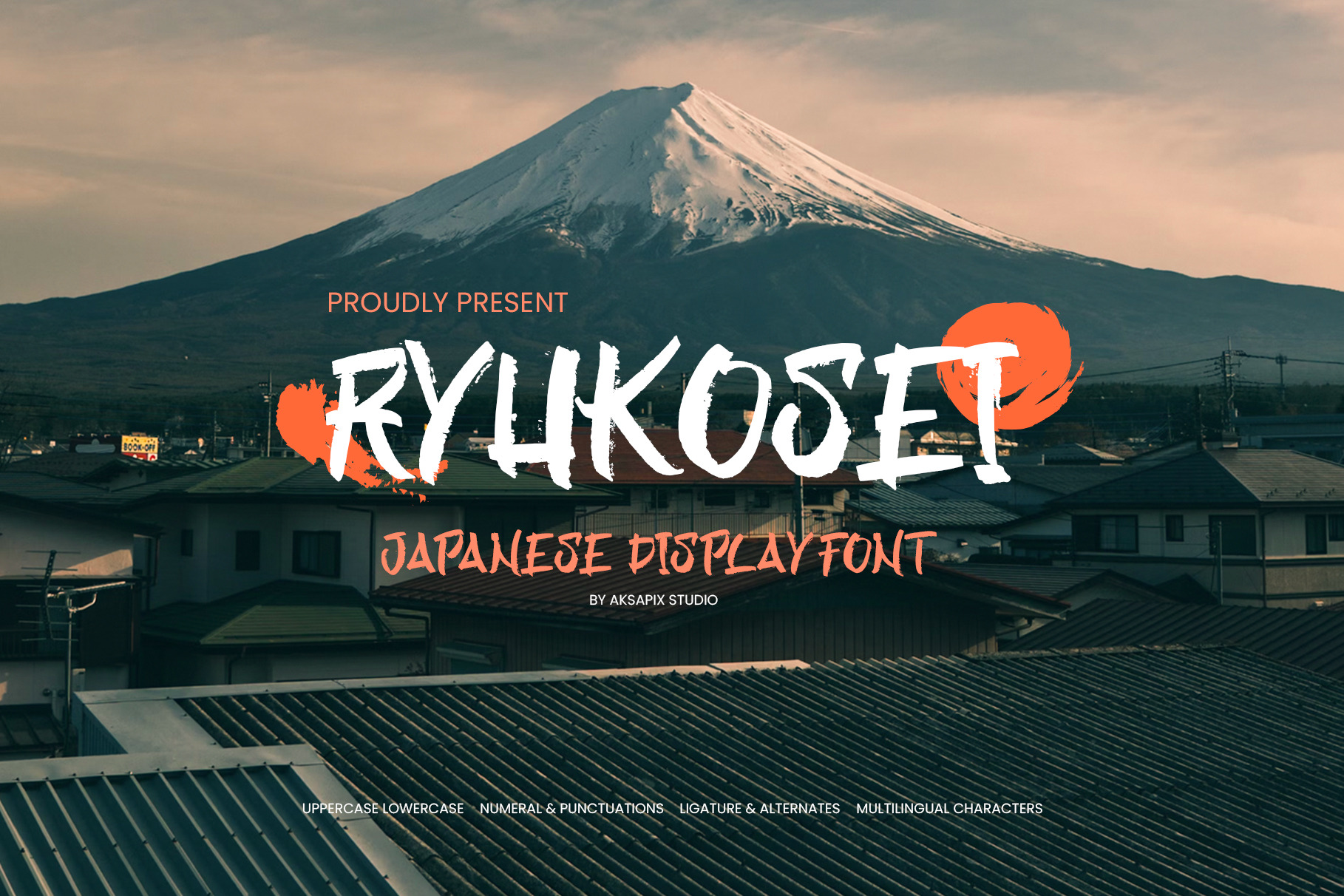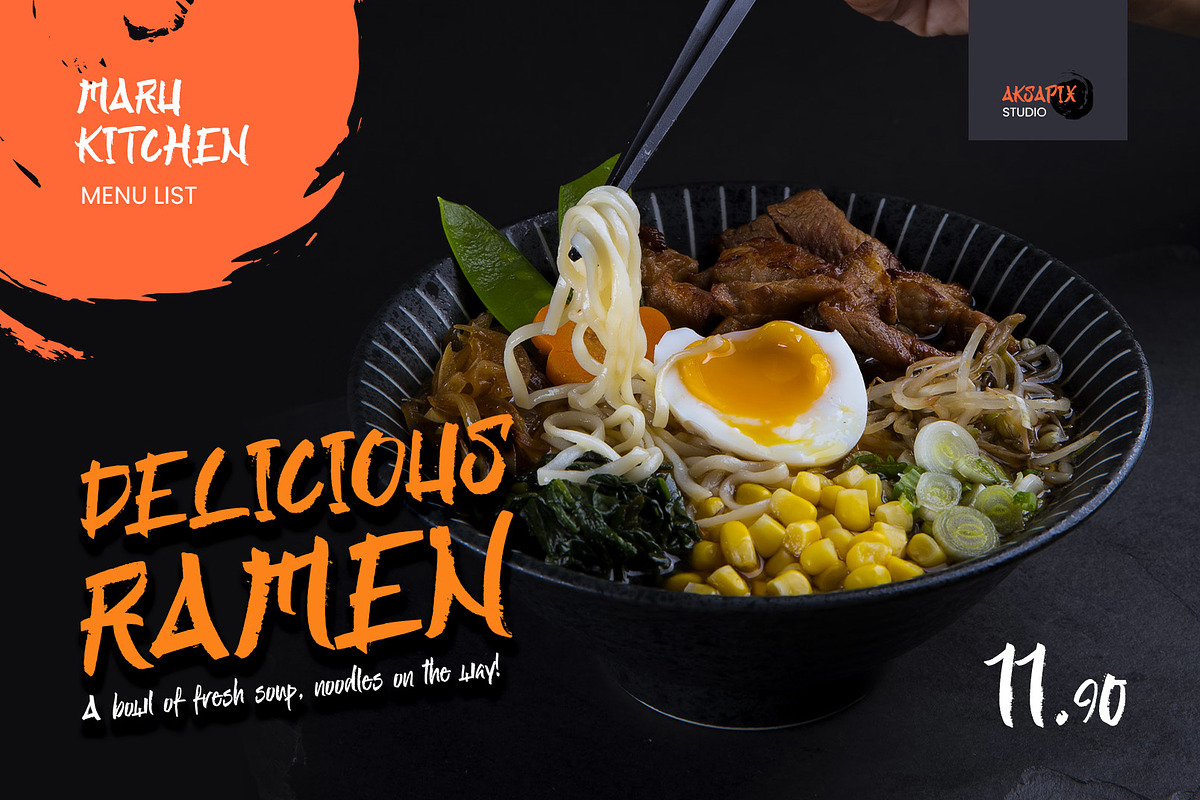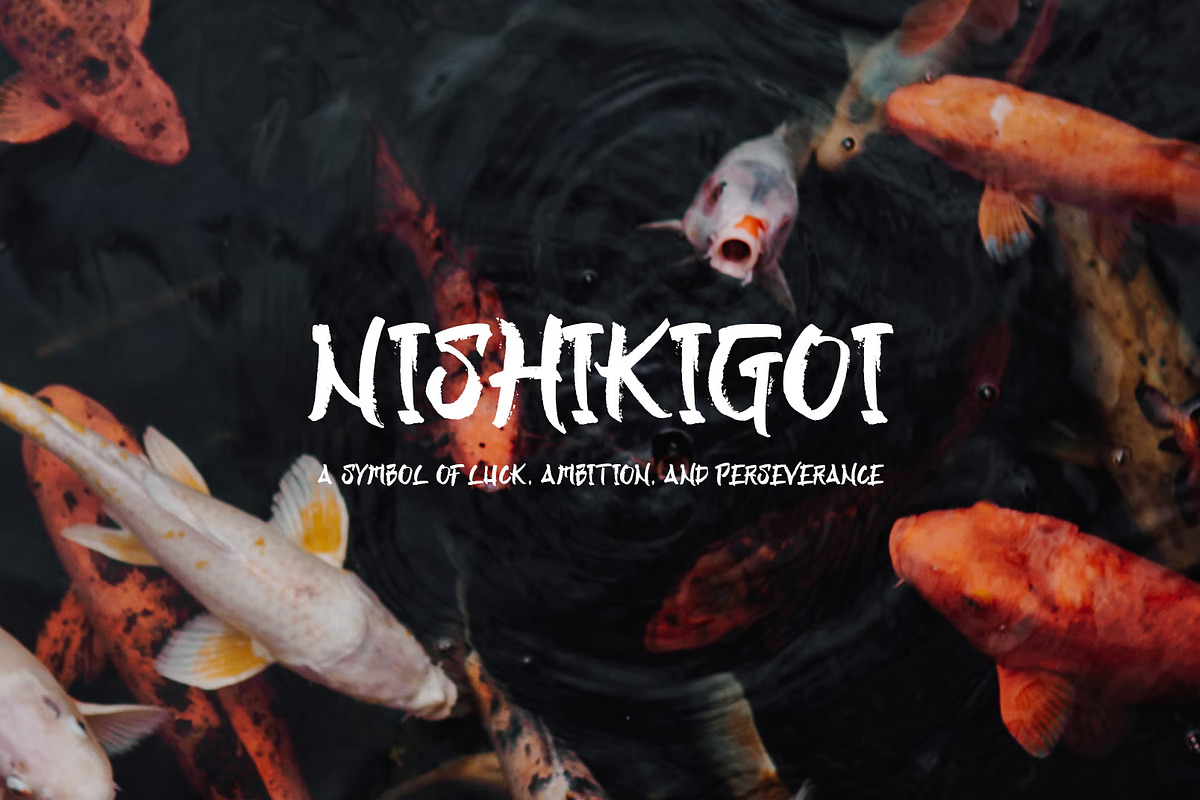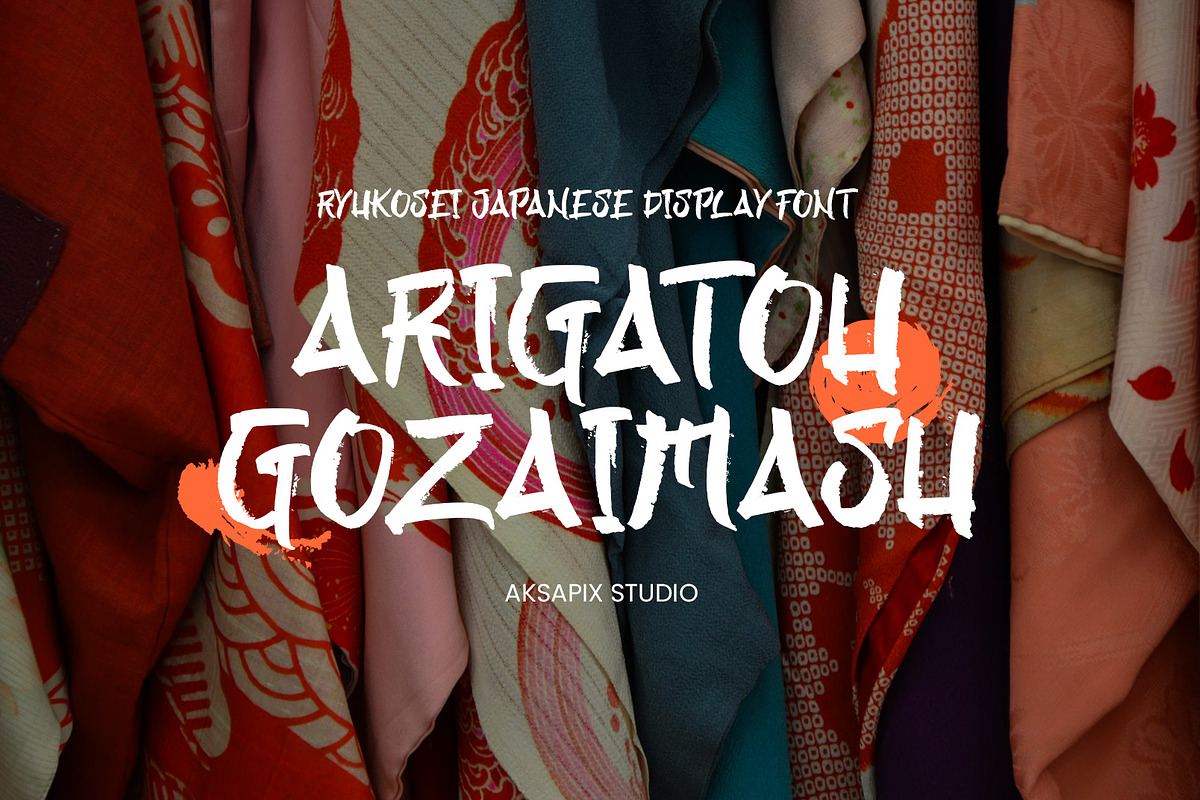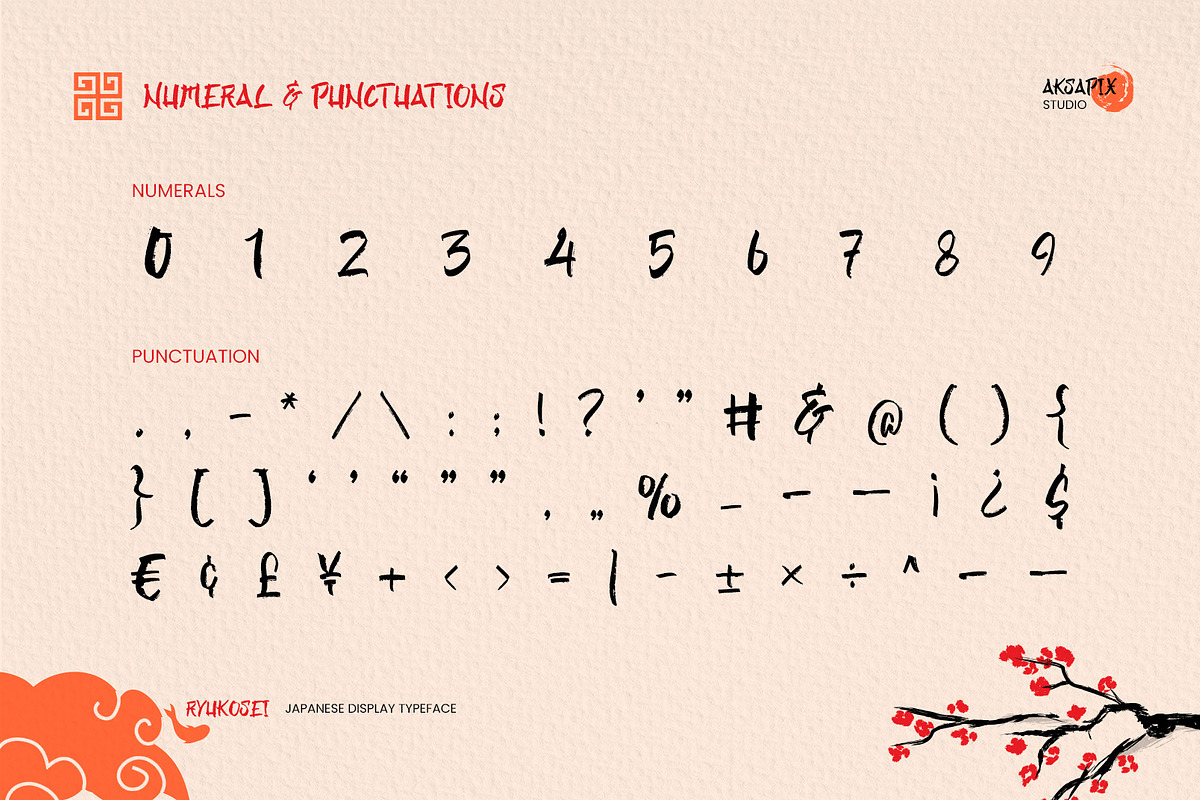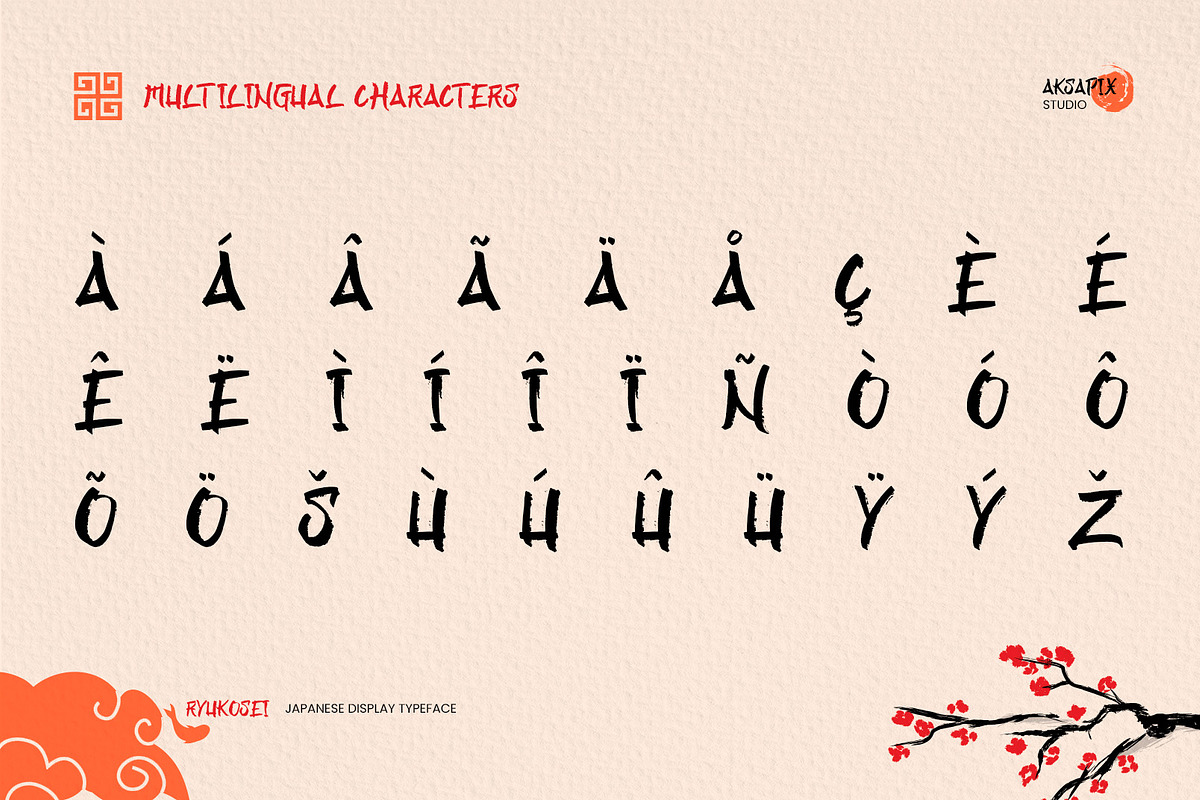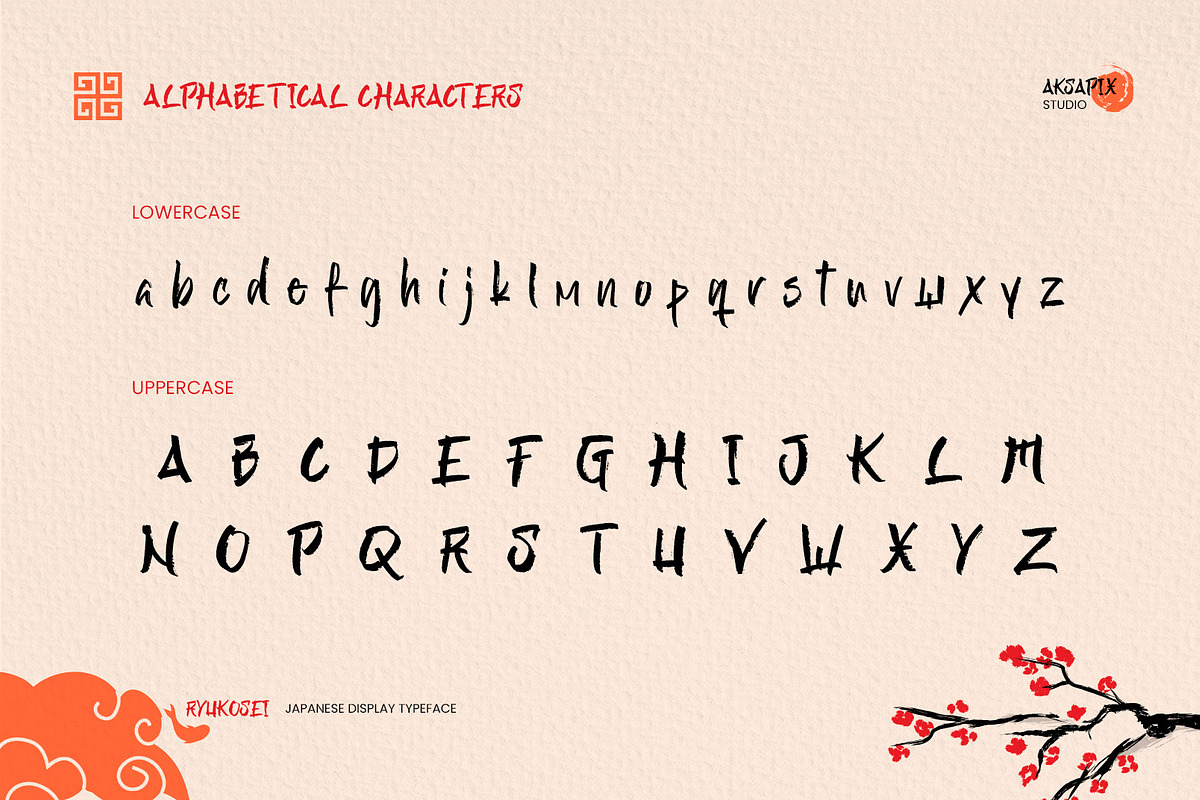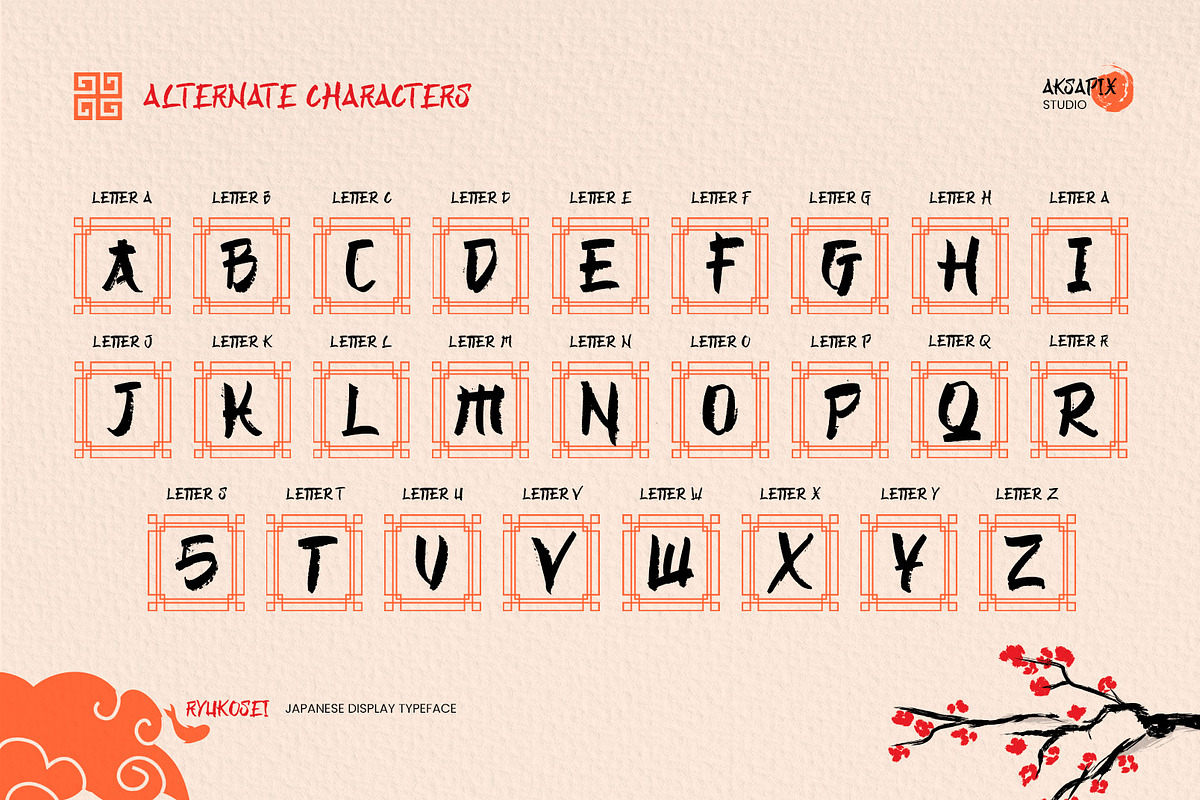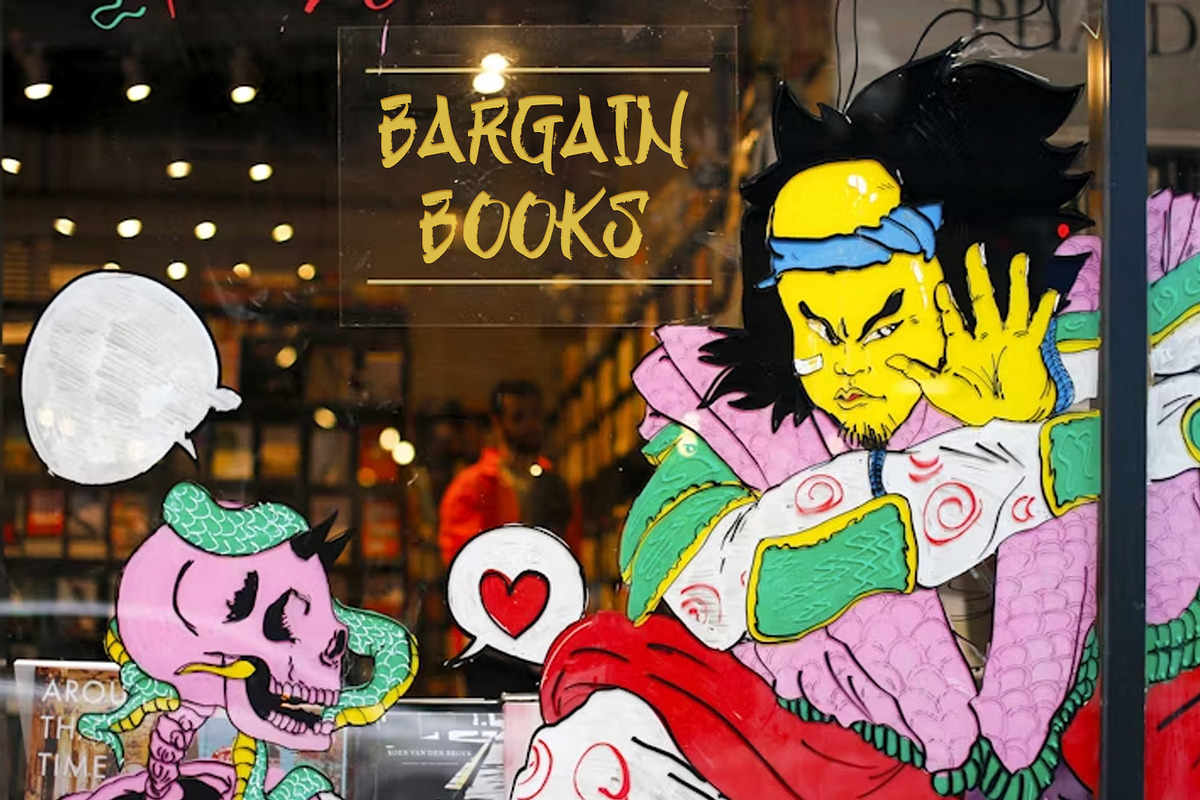
Ryukosei - Japanese Display Font
Introducing Ryukosei - Japanese Display Font
Embark on a journey to the heart of Japan's rich cultural heritage with Ryukosei - a captivating display font inspired by the elegance and beauty of Japanese calligraphy. Whether you're designing posters, packaging, branding materials, or digital art, Ryukosei fonts ensure stunning results in any context. Its unique character and style add visual interest and depth to your creation, setting it apart from the rest.
Punctuation & Numbers